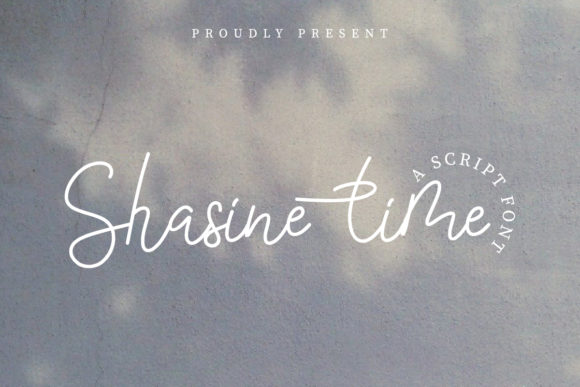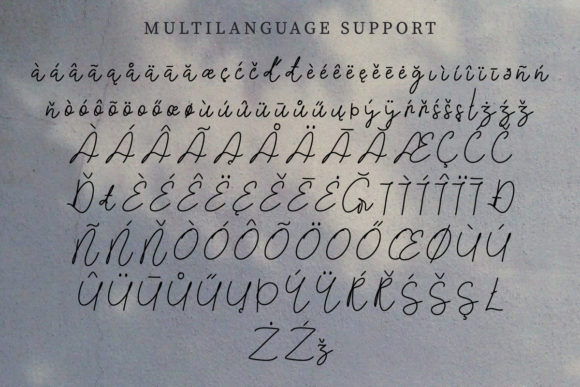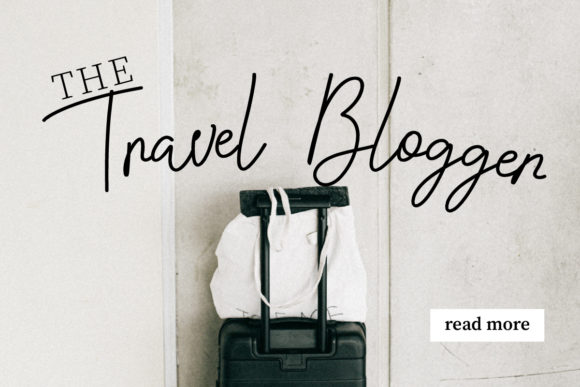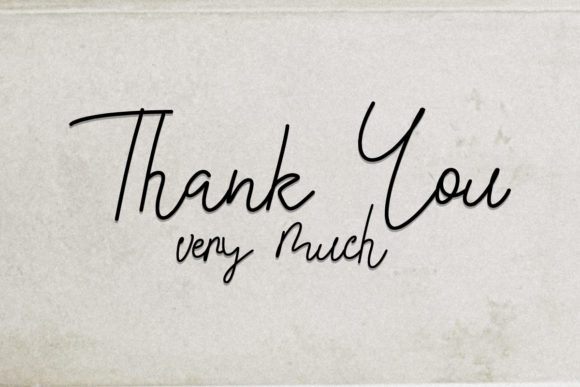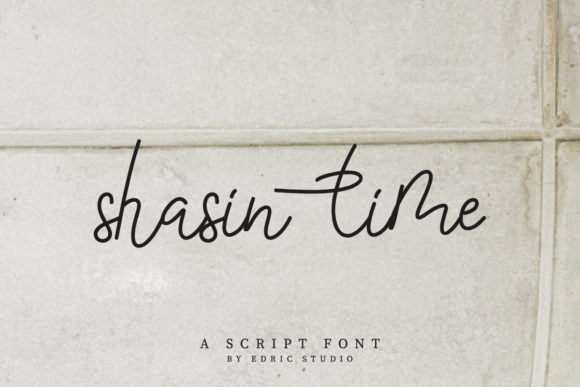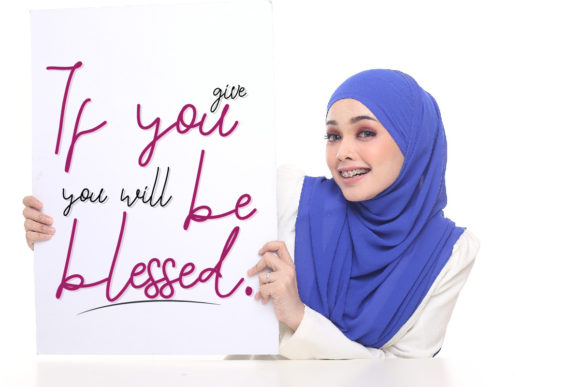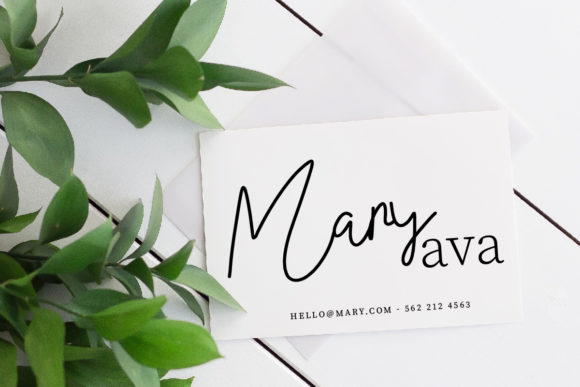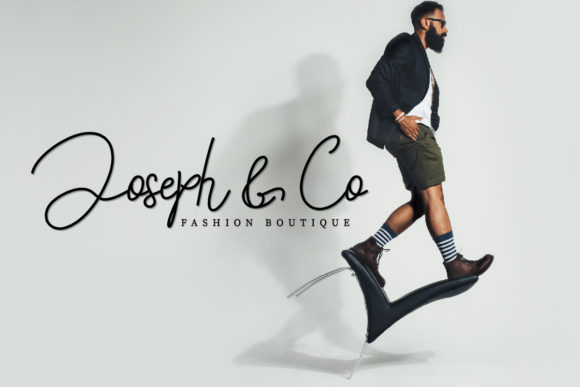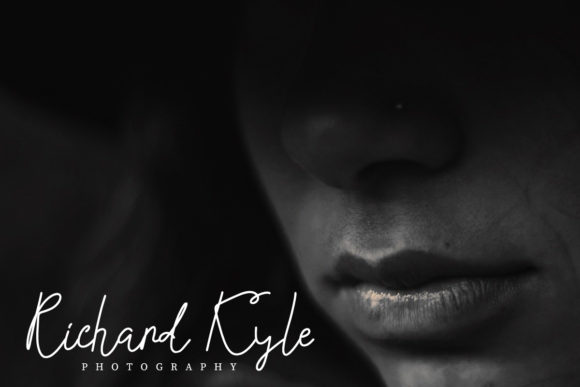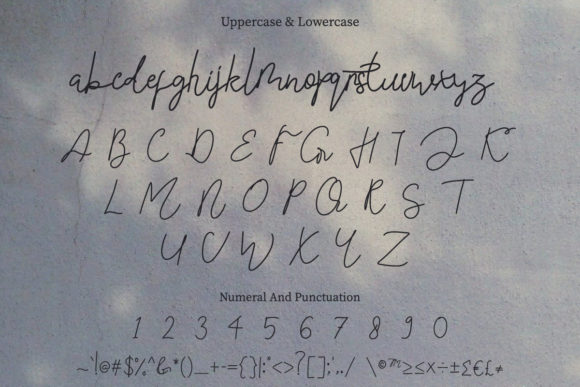
Shasine Time Font
About Shasine Time Font
Shasine Time is a sweet and unique handwritten font. Fall in love with its incredibly versatile style and use it to create gorgeous wedding invitations, beautiful stationary art, eye-catching social media posts, and much more!